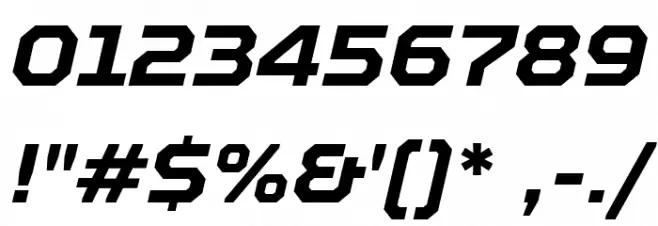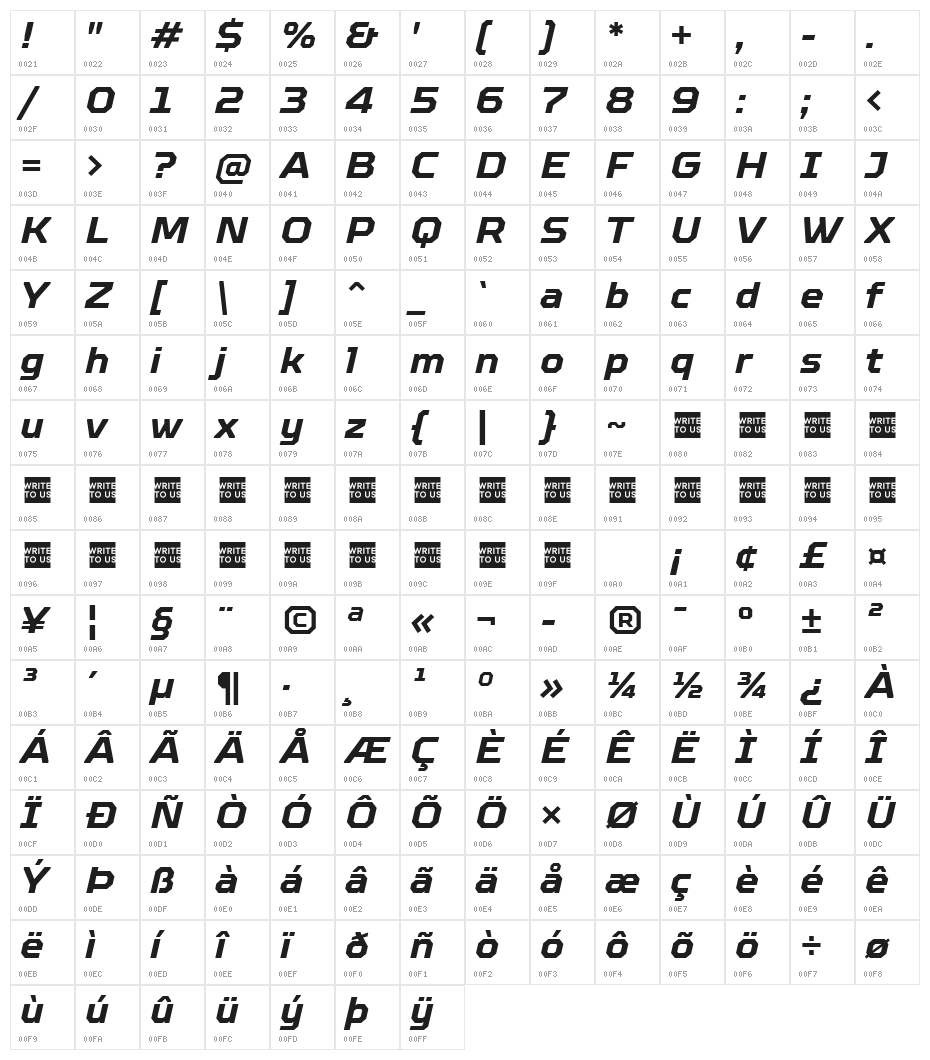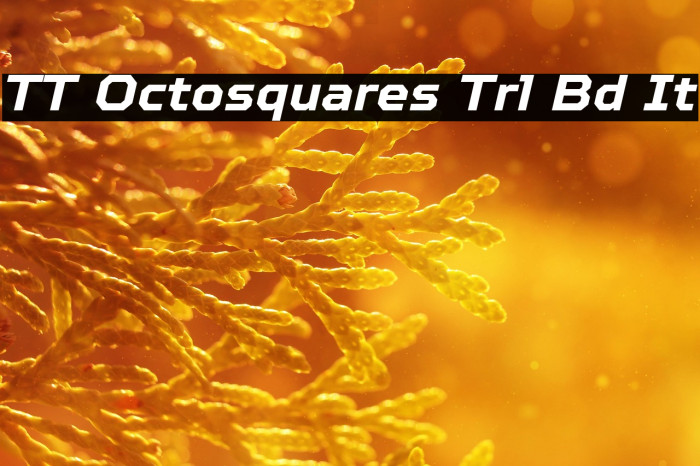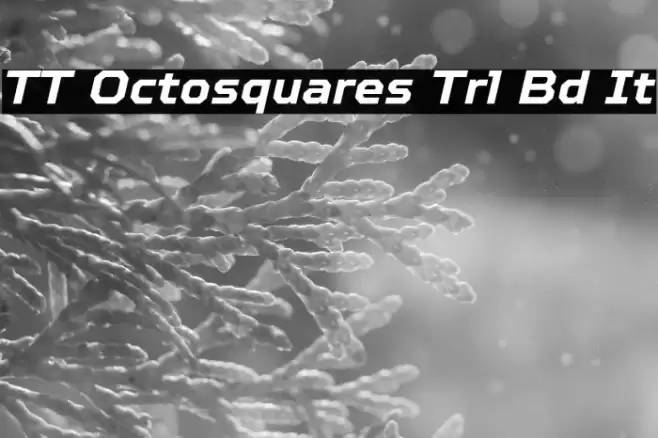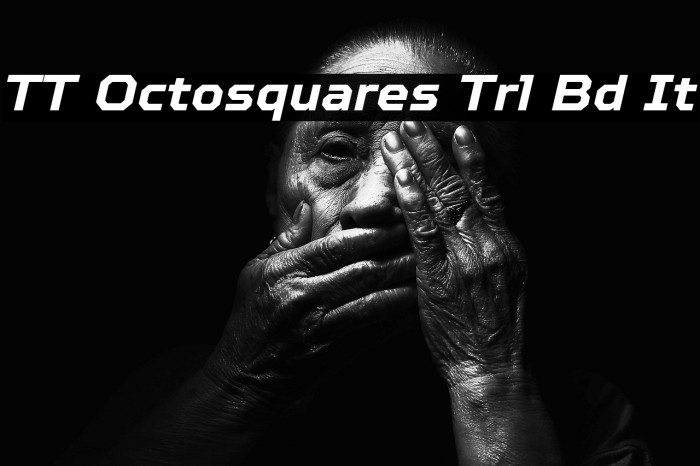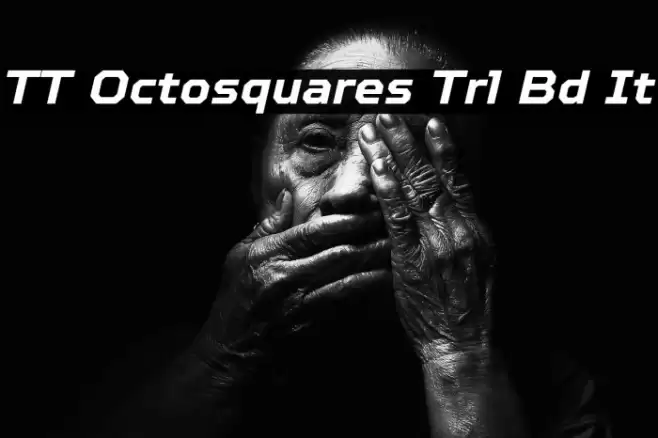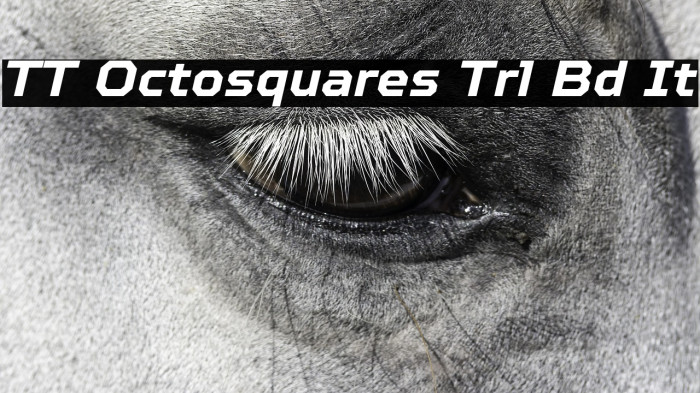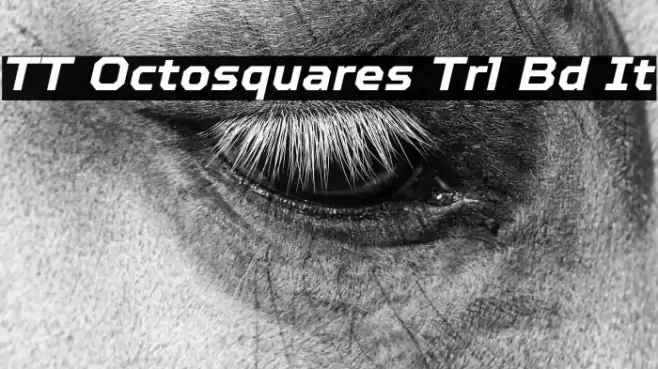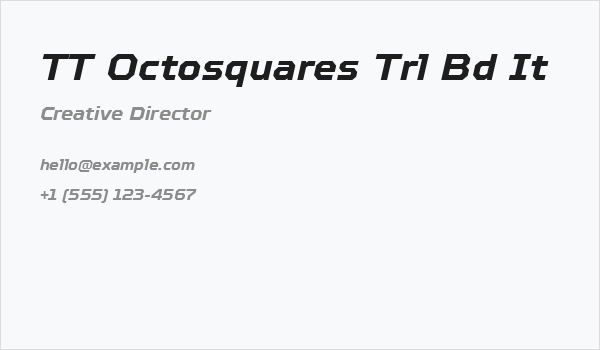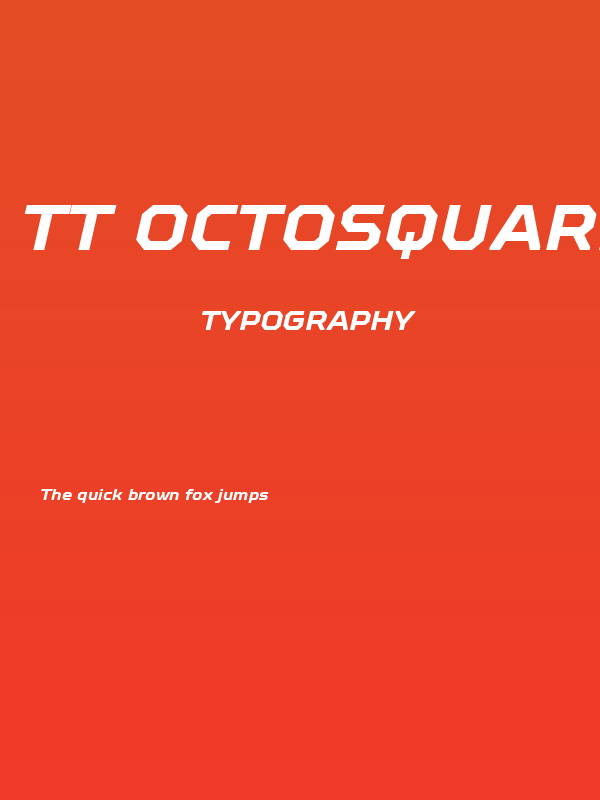
TT Octosquares Trl Bd It Font
TT Octosquares Trl Bd It Description
This font features a bold and italicized style with a modern and geometric aesthetic. The characters are designed with sharp angles and a slight slant, giving them a dynamic and forward-moving appearance. The uppercase and lowercase letters maintain a consistent style, with a uniform thickness that provides a strong visual impact. The numbers and special characters are crafted to match the overall angular theme, ensuring a cohesive look across all elements. The font's structure is clean and precise, making it suitable for projects that require a contemporary and assertive typeface.
| Use Case | Logos, Headlines, Branding |
| Proposed Projects | Ideal for branding, sports team logos, technology-related designs, and modern advertising campaigns. |